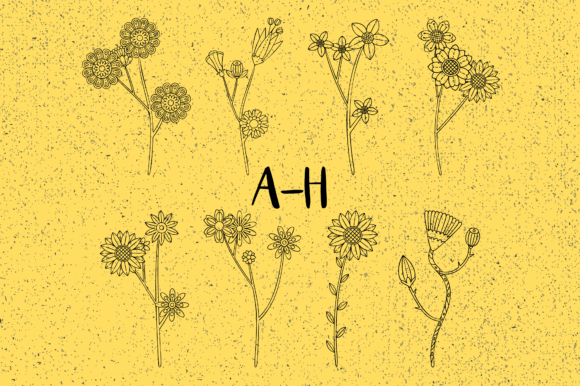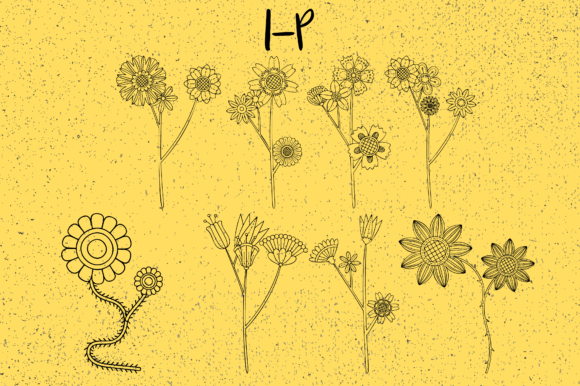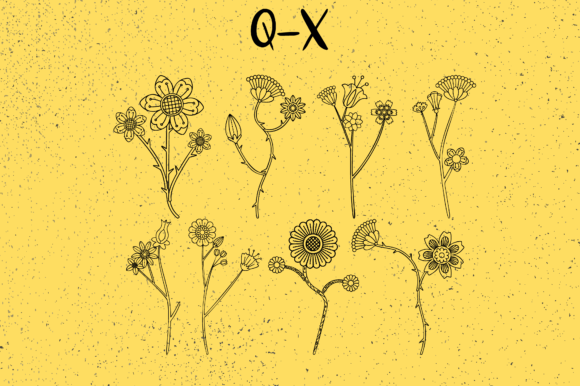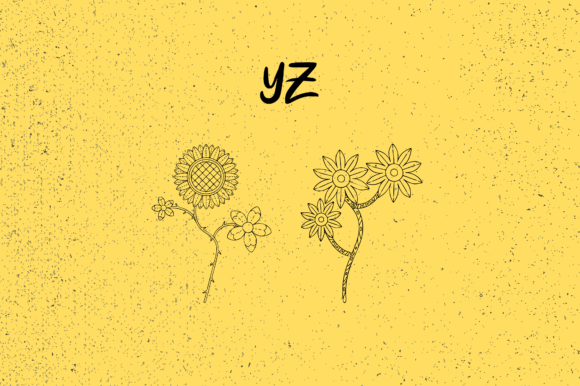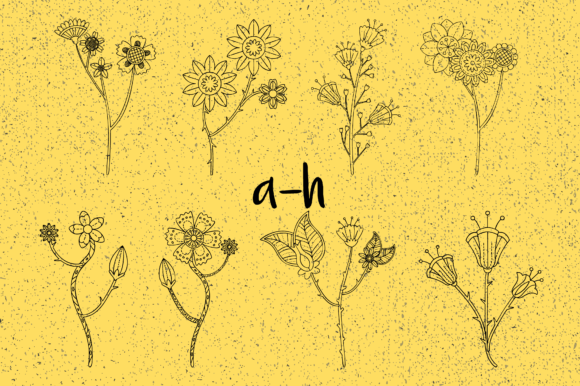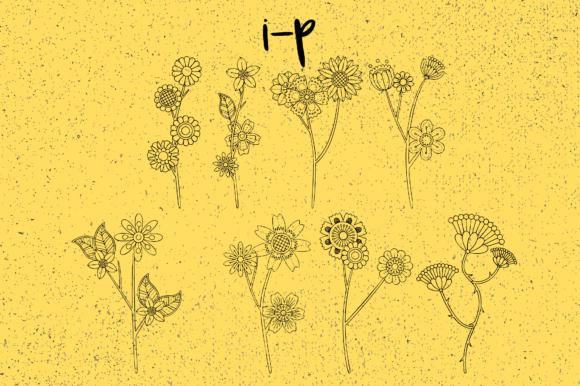
The Blooming Beautiful Font: Unlocking Creative Potential with Bloom
Have you ever been in the midst of a design project, only to find yourself stuck on a crucial element? I recall a particularly frustrating experience while working on a floral-themed invitation, desperately searching for the perfect font to complement my design. The quest led me to discover the delightful Bloom Font, a game-changing dingbats font that has since become an indispensable part of my design toolkit.
What is Bloom Font?
Bloom is a delicate and useful dingbats font, carefully crafted to help designers, crafters, and creative hobbyists generate up to 62 stunning floral and botanical line art doodles. The magic lies in its simplicity: by typing capital and small letters, as well as numbers, you can effortlessly create beautiful illustrations.
What I Love About Bloom Font ✨
- ✨ Effortless illustration creation: With Bloom, you can produce intricate floral designs in a fraction of the time it would take with traditional illustration methods.
- ✅ Versatility: The font offers a wide range of designs, from simple to complex, making it suitable for various projects, such as invitations, crafts, and digital art.
- 💐 Aesthetic appeal: The delicate, hand-crafted feel of Bloom’s illustrations adds a touch of elegance and sophistication to any design.
- ⚠️ Learning curve: While Bloom is relatively easy to use, it may take some time to get familiar with the different glyphs and how to access them.
- ⚠️ OpenType features: Some users may find it tricky to navigate the font’s OpenType features, but this can be overcome with a little practice and patience.
The Story Behind Bloom Font
While the true story behind Bloom Font remains a mystery, it’s easy to imagine that its designer was inspired by the beauty of nature and the world of botany. Perhaps they sought to create a font that would allow others to tap into their creativity and bring a touch of elegance to their designs. Whatever the inspiration, Bloom Font has undoubtedly become a valuable tool for creatives worldwide.
| Font Name | Bloom Font |
| Author | Minimalistartstudio |
| What is Bloom Font? | Bloom Font is a dingbats font designed to generate floral and botanical line art doodles. |
| How many illustrations does Bloom Font offer? | Bloom Font offers up to 62 stunning floral and botanical illustrations. |
| Is Bloom Font suitable for beginners? | Absolutely! Bloom Font is designed to be user-friendly and accessible to designers of all skill levels. |